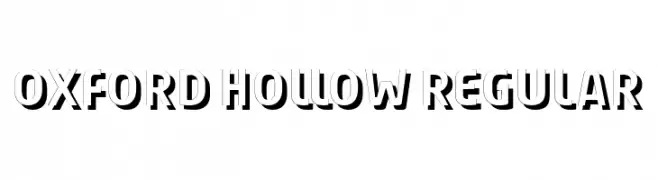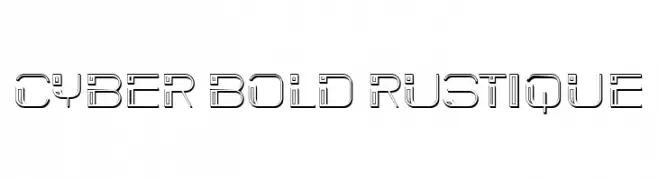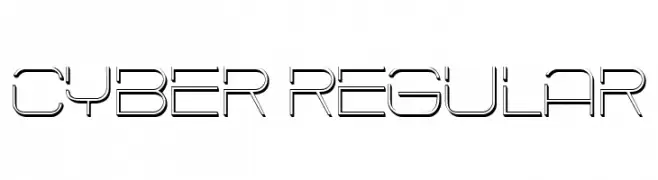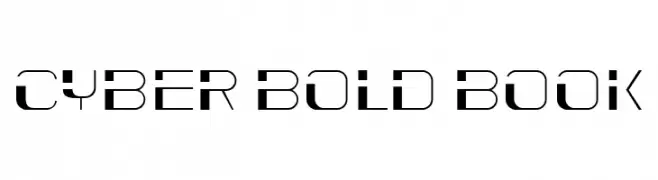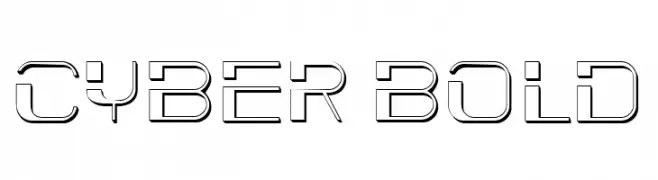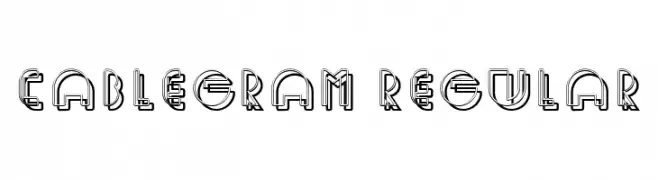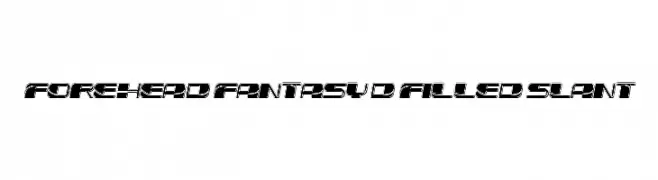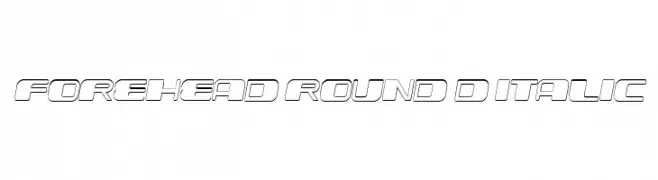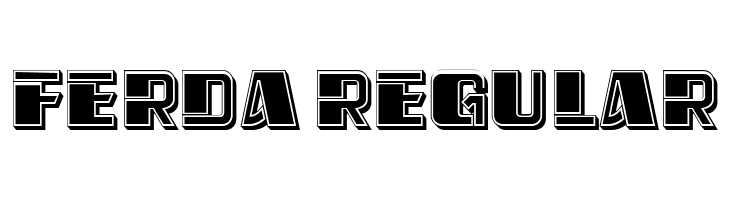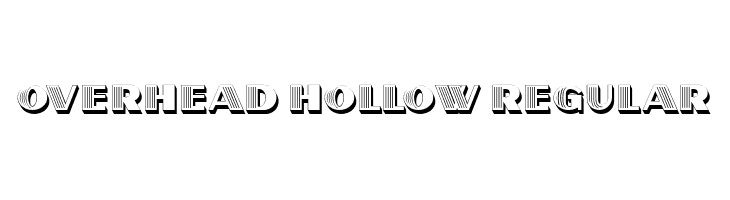
A bold, hollow display font with a modern, geometric style.
A bold, geometric font with a futuristic, industrial design.
A futuristic, geometric font with a double-line outline style.
A futuristic, geometric font with a bold, digital aesthetic.
A futuristic, geometric font with bold, angular letterforms and a digital aesthetic.
A bold, geometric font with a three-dimensional, layered effect.
A bold, futuristic 3D font with a slanted, dynamic design.
A bold, 3D italic font with rounded edges and a futuristic style.
A futuristic 3D italic font with bold outlines and a dynamic, modern style.
A bold, geometric outline font with a modern and futuristic aesthetic.